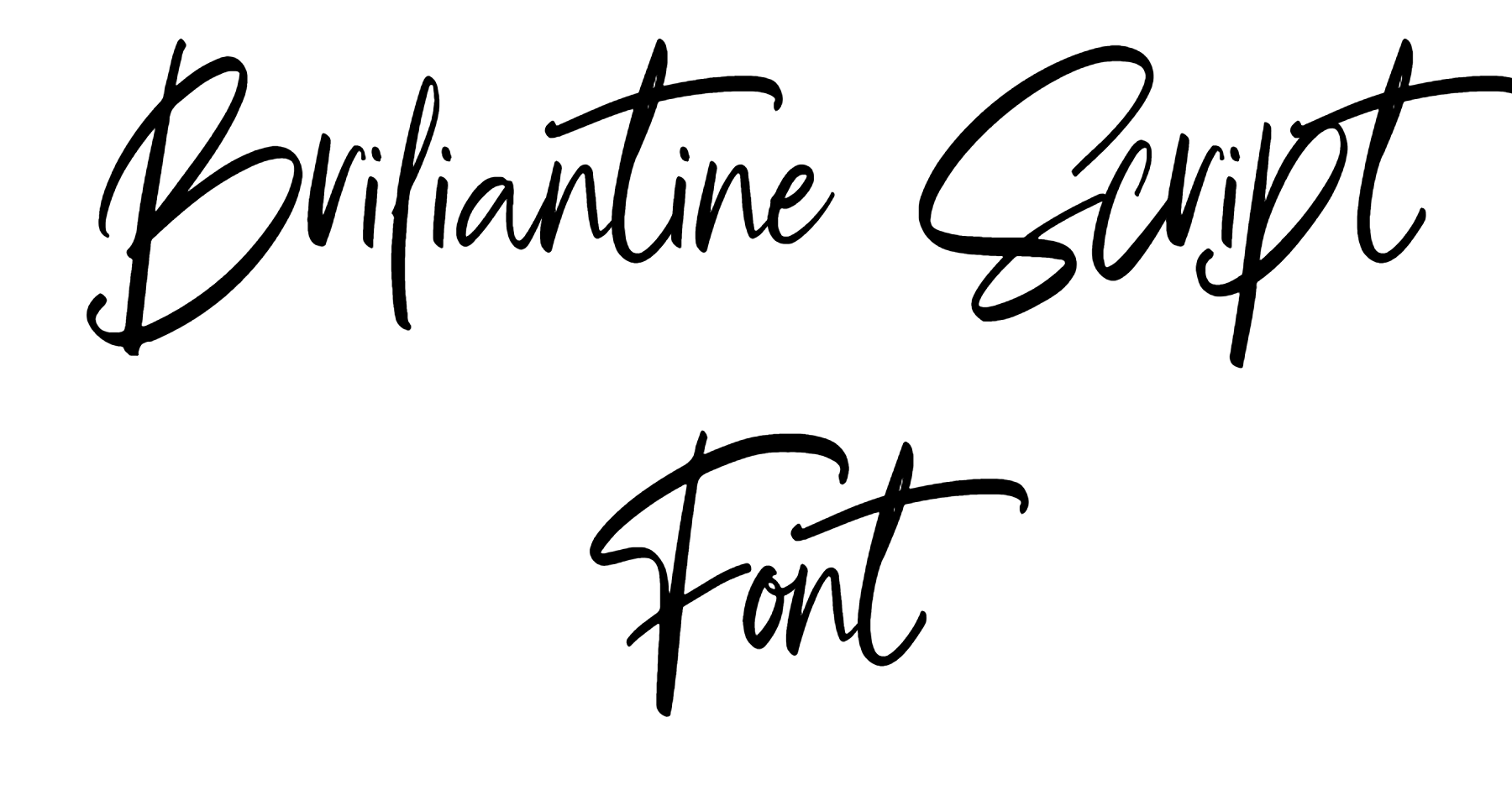
Briliantine Script
Briliantine Script is a handwritten font designed by Putra Khan and published by Putra Khan Studio (2018). It has a casual, written-with-a-pen look that makes designs feel personal. You can download it for free and test it with your own words in the preview above.
- Designer: Putra Khan
- Publisher: Putra Khan Studio
Briliantine Script has the full alphabet in upper and lowercase. There are no numbers, so you'll need a second font for dates, prices or phone numbers. Punctuation is limited, so look at the character map if you need a specific symbol. It doesn't include accented letters such as é or ñ, which makes it an English-only font.
Designers usually reach for fonts like Briliantine Script when they're making greeting cards, journal pages and friendly social posts. Set it a bit larger than you would a normal text font. Handwriting styles lose their charm once they get too small to read comfortably.
Who designed Briliantine Script font?
Does Briliantine Script support accented letters?
No. Briliantine Script has no accented letters such as é, ñ or ü, so it's best for English text.
Does Briliantine Script have numbers?
No. Briliantine Script has no numbers, so pair it with another font for dates, prices or phone numbers.